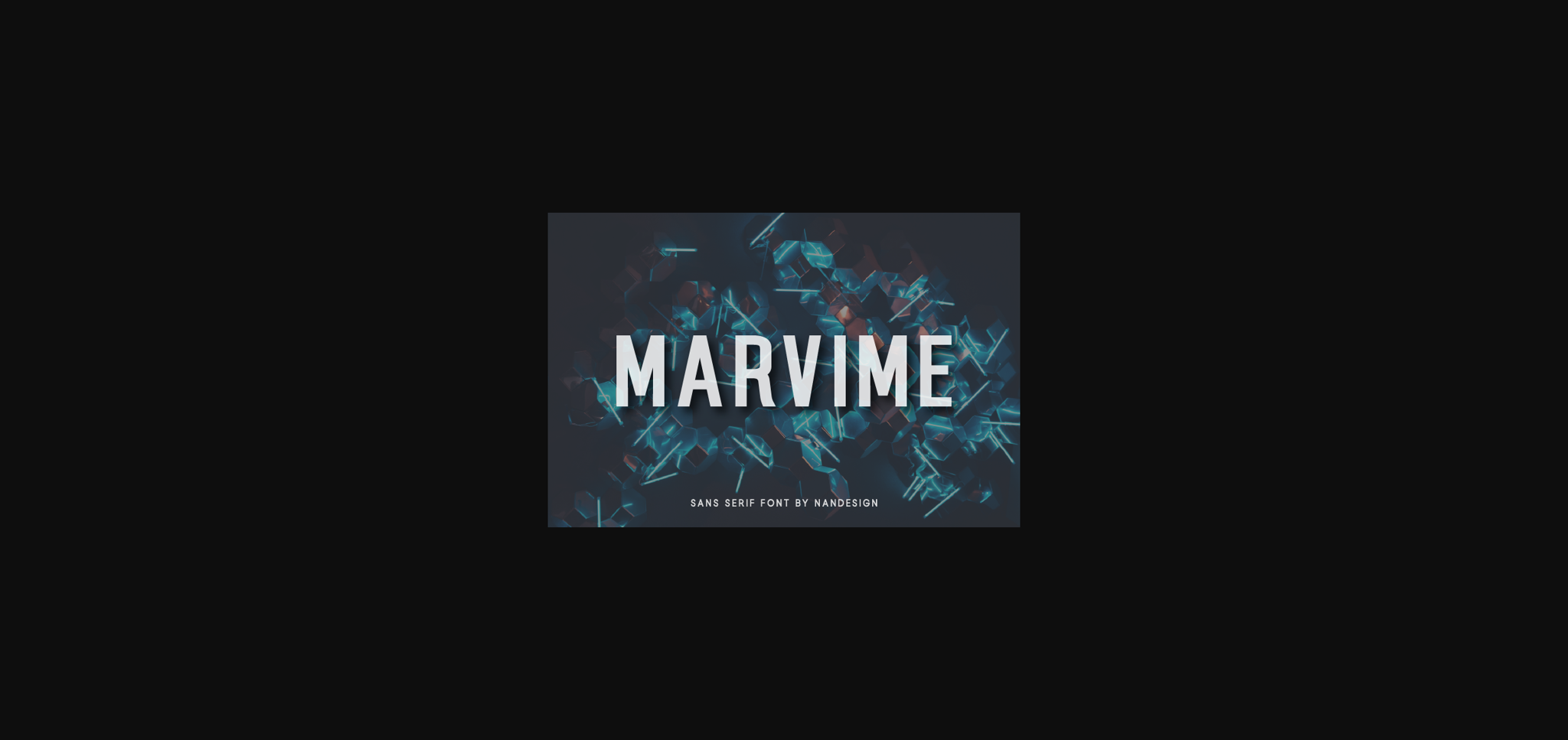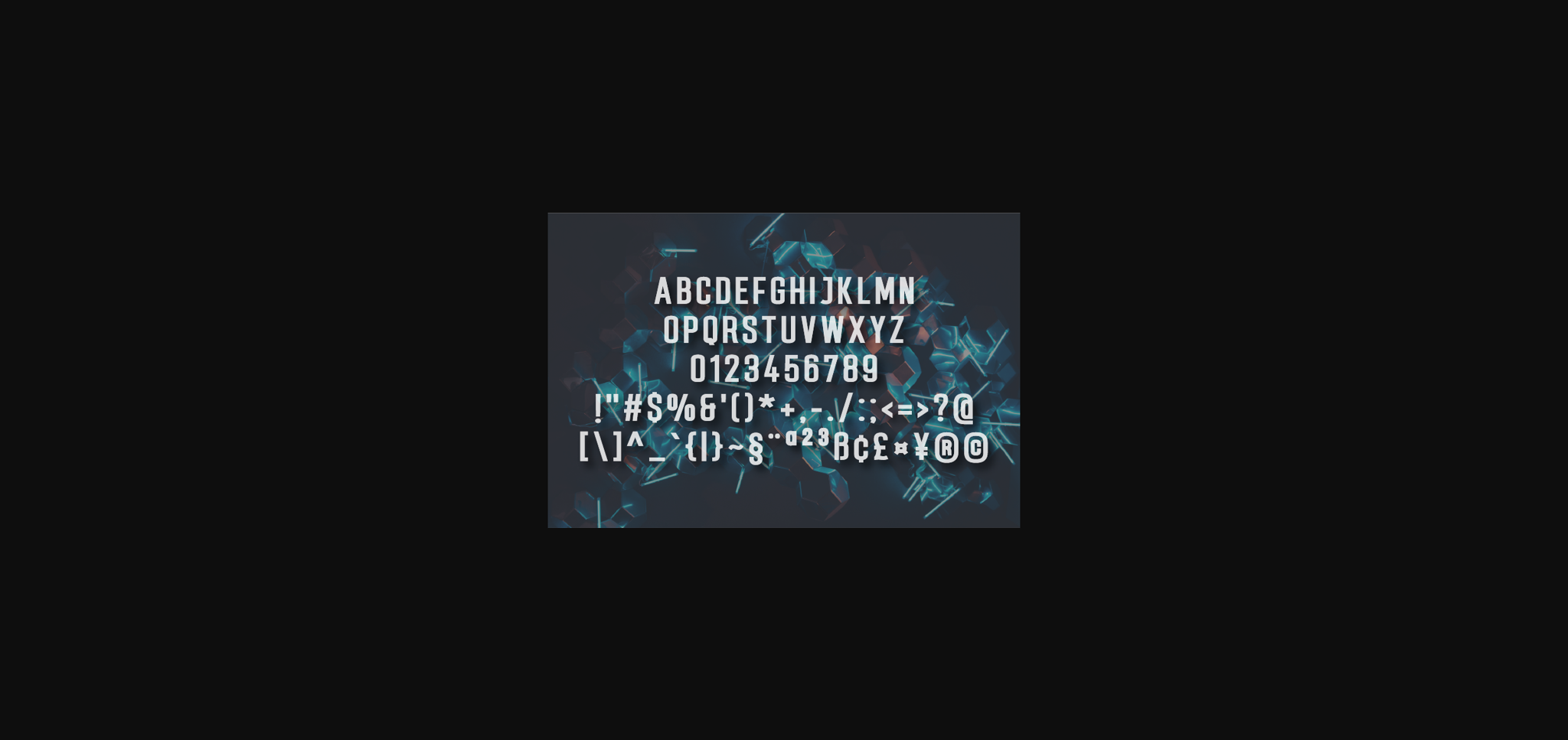
Marvime Font
About Marvime Font
Marvime is a minimal and authentic sans serif font. Suitable to a wide variety of designs due to its neat and simple style, Marvime has the potential to become your favorite go-to font, no matter the occasion!